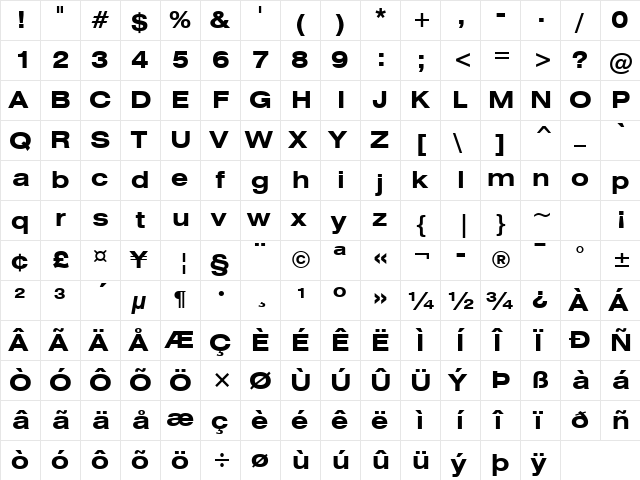
Swis721 Ex BT Bold
Design Context for Swis721 Ex BT Typeface
Swis721 Ex BT is a composed and adaptable typeface that performs quietly and consistently across a wide range of design contexts. Its bold stroke weight gives it real presence on the page.